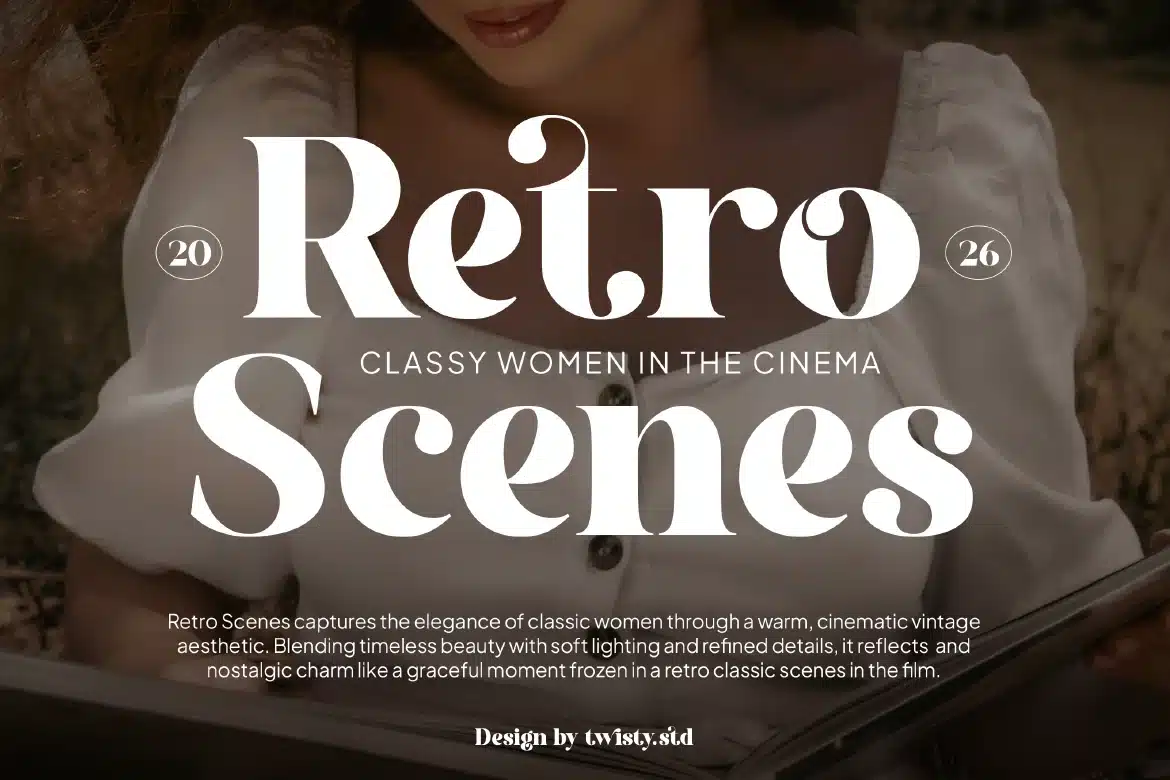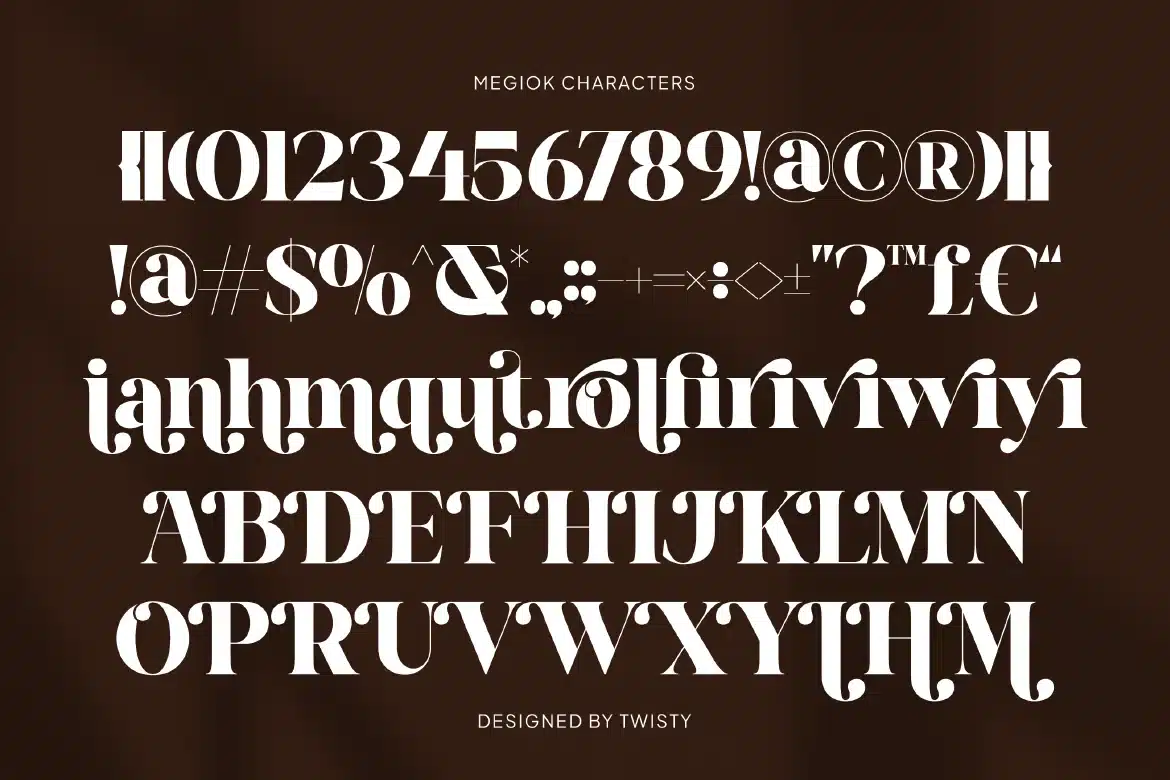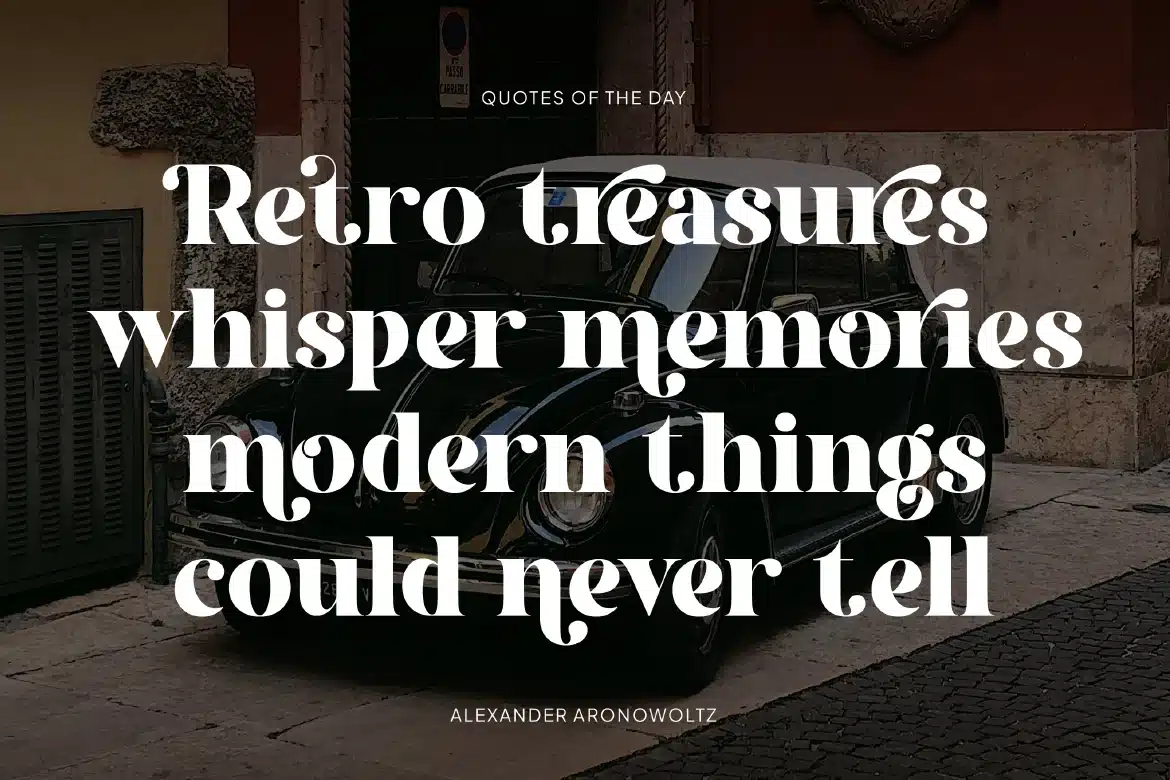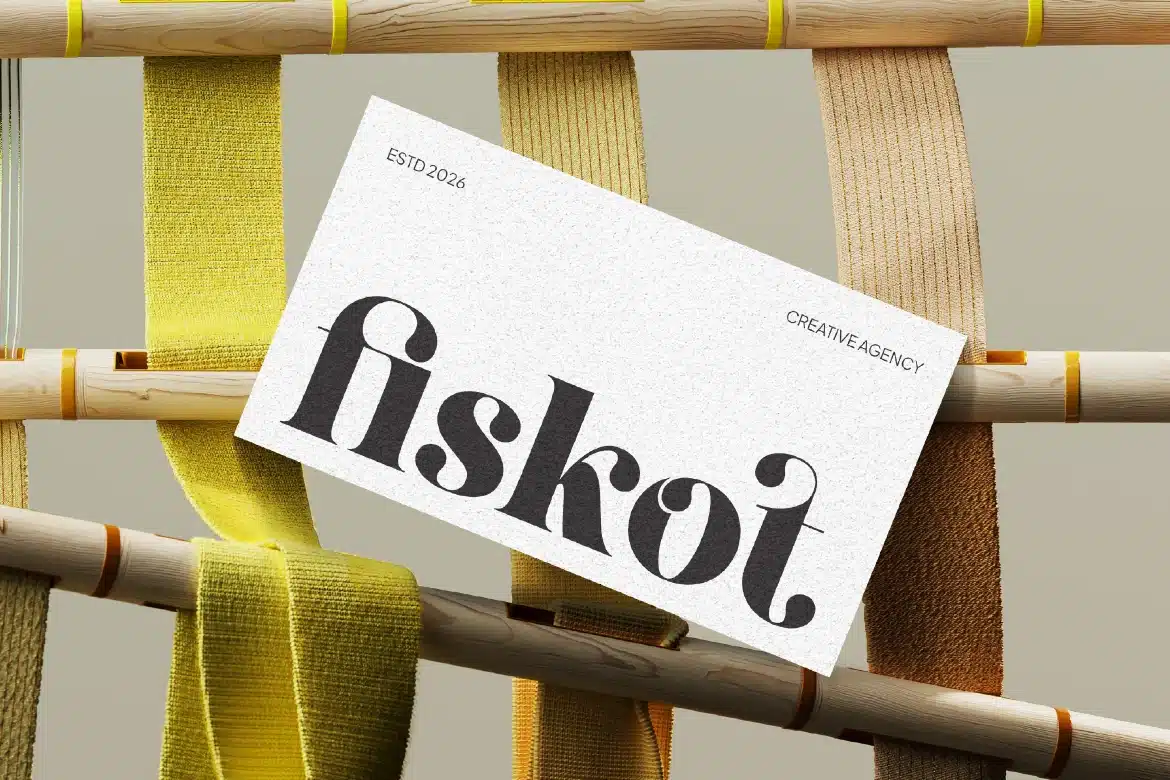
Classy Retro Serif Font – Megiok
Classy Retro Serif Font - Megiok
Megiok is a classy retro serif typeface that blends vintage charm with refined elegance. Designed with stylish curves and distinctive serif details, this typeface brings a warm nostalgic feel while maintaining a polished and modern appearance. Its balanced letterforms create a smooth and harmonious look, making every design feel both timeless and sophisticated.
Who Should Use Megiok?
Megiok is ideal for designers, creatives, and brands who want to express a classy and retro aesthetic with an elegant touch. It’s especially suited for projects that require a timeless visual identity with strong personality and style.
Retro and vintage branding
Elegant logo design
Fashion and beauty projects
Packaging design
Editorial and magazine layouts
Wedding invitations and stationery
Social media graphics
Posters and promotional materials
Classic typography and quotes